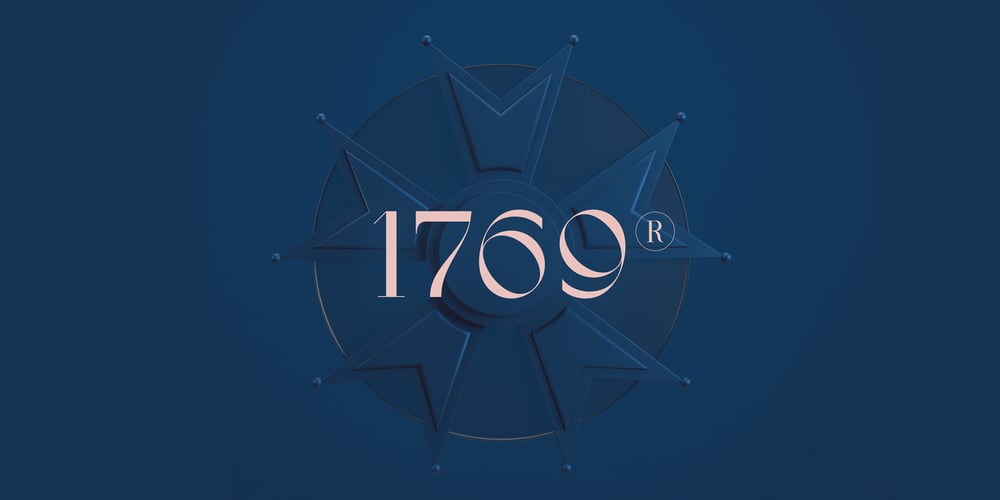
1769 Font Family was designed by Jérémie Gauthier and published by Almarena. 1769 contains 1 styles and family package options. 1769® Display is an elegant and modern serif typeface inspired by the history of France and more particularly the Romantic movement (1700s and 1800s). The roundness of its characters and its numerous ligatures reflect the grace, refinement and sensitivity that were omnipresent during the 18th century. Its name refers to the birth of Napoleon Bonaparte, the fascinating or revolting emperor, the emblematic figure of this period.